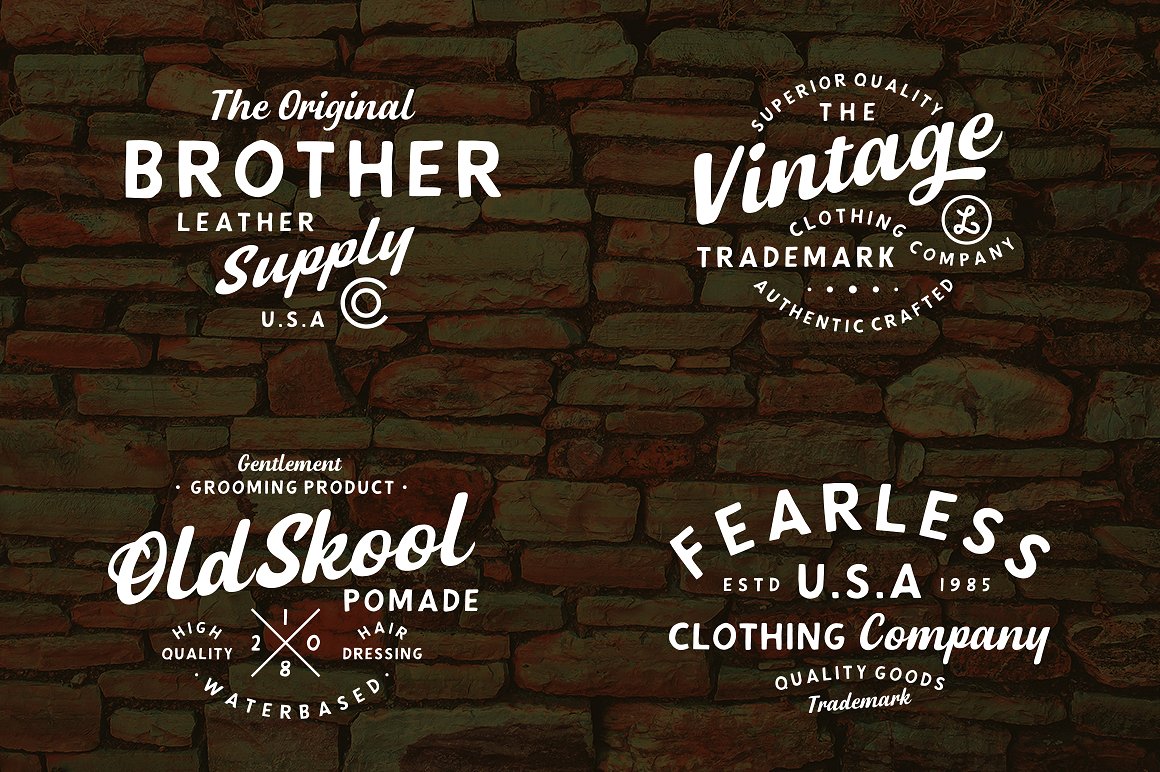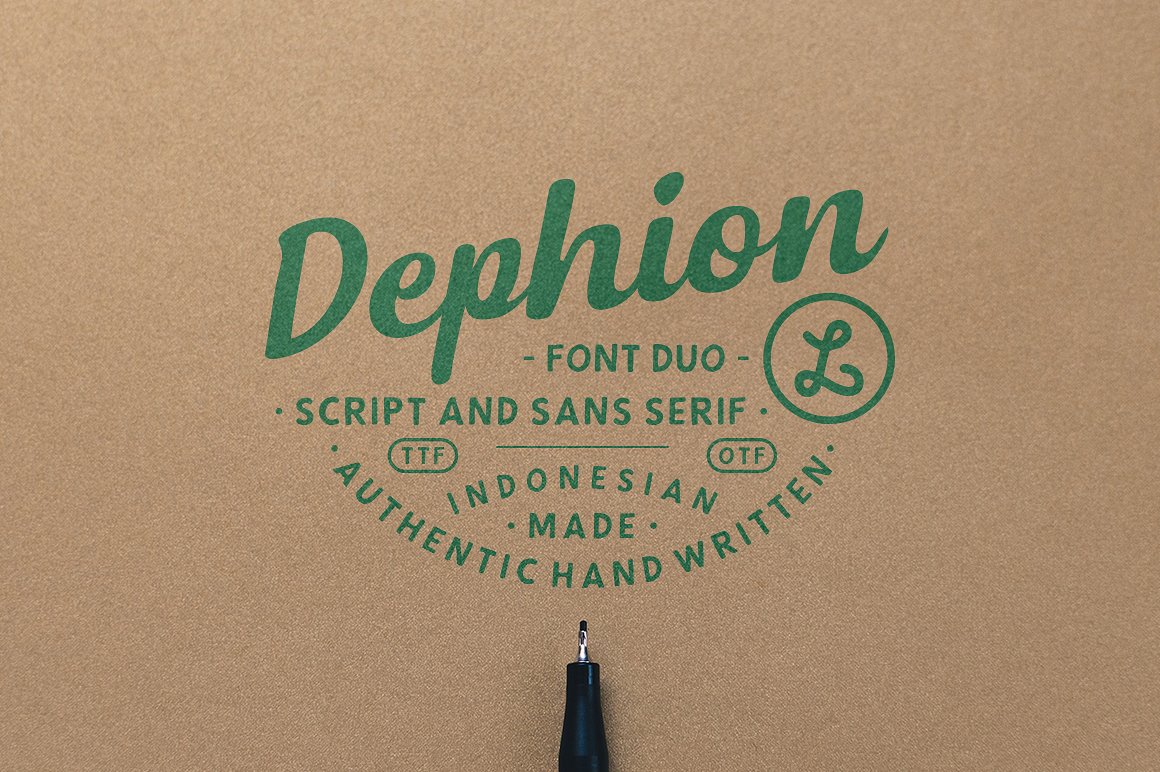
Dephion Script Font
Dephion, one of the handmade fonts we made to give a casual and natural impression. We want to get out of the habit of seeing the perfect font type by making the shape imperfect and irregular. Dephion family brings modern calligraphic styles and sans created in a very manual way.